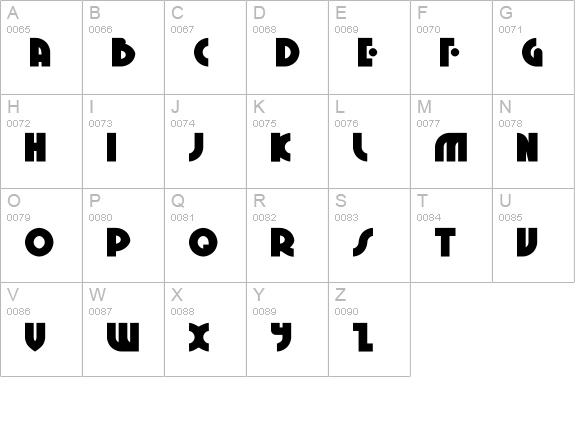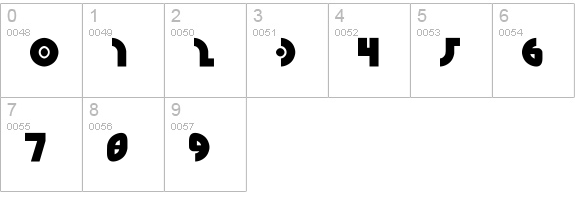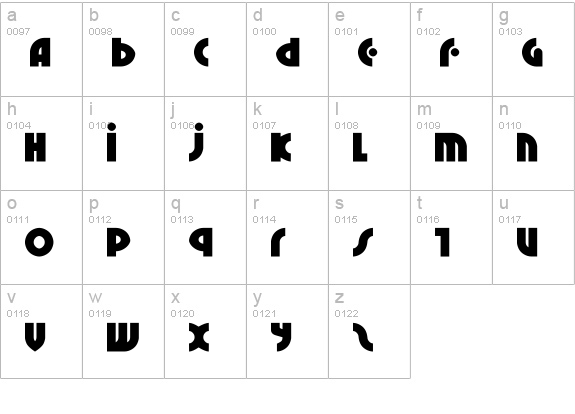
Neuralnomicon Font Details
Neuralnomicon font is a modern and sleek typeface that exudes a futuristic and tech-savvy vibe. Its sharp edges and clean lines give it a cutting-edge aesthetic that is perfect for projects that require a contemporary and edgy look. The font's geometric design and bold presence make it ideal for branding, digital applications, and creative designs that demand attention. What makes Neuralnomicon font even more appealing is that it is available for free download at FontsMarket.com. This means that you can elevate your projects with this distinctive typeface without having to spend a dime. Whether you are a designer looking to add a touch of sophistication to your work or a creative professional seeking a font that stands out from the crowd, Neuralnomicon font is the perfect choice. Download it now and unleash your creativity with this remarkable and complimentary font.